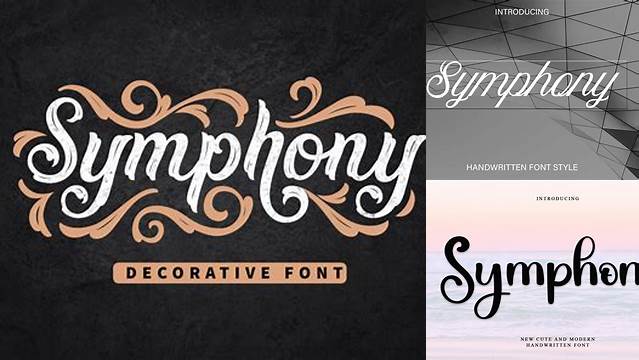
Symphony Font: Free Download And Design Guide
Hey guys! Ever find yourself on the hunt for the perfect font to jazz up your designs? If you're anything like me, the struggle is real. But fear not, because today we're diving headfirst into the world of the Symphony font, a real beauty that's totally free to download. We're talking elegance, style, and a touch of class, all wrapped up in a single typeface. Get ready to elevate your projects to a whole new level! In this comprehensive guide, we'll explore everything you need to know about the Symphony font, from its origins and characteristics to where you can snag it for free and how to use it like a pro. So, buckle up and let's get started!
What is the Symphony Font? Unveiling the Elegance
So, what exactly makes the Symphony font so special? Well, picture this: It's a sleek, modern typeface that oozes sophistication. It's like the little black dress of fonts—versatile, timeless, and always in style. Designed with a focus on readability and aesthetic appeal, Symphony is perfect for a wide range of applications, from website headers and branding materials to print designs and social media graphics. The font boasts a clean, crisp design that's easy on the eyes, ensuring your message is not only seen but also appreciated. With its well-balanced letterforms and elegant curves, Symphony adds a touch of refinement to any project, making it a go-to choice for designers and creatives alike. Seriously, the visual impact this font can have is pretty amazing. The Symphony font, known for its refined and versatile nature, stands out due to its elegant design. This font is ideal for numerous applications, making it a valuable resource for designers and creatives. Symphony fonts are not just about visual appeal; they also prioritize functionality. The font is crafted with a focus on excellent readability and visual harmony. Every aspect of the design, from the weight of the strokes to the spacing between characters, is carefully considered to make sure the text is not only attractive but also easy to read. This makes Symphony an excellent option for body text, headlines, and other design elements, ensuring that your message is conveyed efficiently. Its adaptability makes it an outstanding choice for various creative projects. Whether you are designing a website, creating marketing materials, or working on personal projects, the Symphony font can significantly improve the overall aesthetic and professionalism of your work. The simplicity and sophistication of the Symphony font enable it to complement any design style. Symphony’s compatibility with different design platforms is also worth mentioning. It works seamlessly across all major design software and operating systems, meaning you can use it in your projects without technical limitations. This ease of use makes Symphony an accessible choice for both seasoned designers and beginners alike.
Key Features and Characteristics of Symphony Font
Alright, let's dive a bit deeper and explore what makes the Symphony font tick. We're talking about its key features and characteristics, the things that make it stand out from the crowd. This is where the real magic happens, the stuff that'll have you itching to download it and start creating. The Symphony font is celebrated for its clean lines, balanced proportions, and refined aesthetic, ensuring it is suitable for various design applications. Its versatile nature makes it an excellent choice for a broad spectrum of uses, from headings and titles to body text and branding elements. Symphony’s designers focused on both visual attractiveness and practical usability. They designed each letter with care to make sure it is not only aesthetically pleasing but also highly readable. The font’s clarity is particularly beneficial in digital and print applications where text needs to be accessible and easily understood. Beyond its visual aspects, the Symphony font offers a robust character set that supports many languages and special characters, improving its versatility. This broad language support makes it an ideal choice for global projects, guaranteeing that your message can be communicated clearly, regardless of the target audience. In addition, the Symphony font is frequently available in multiple weights and styles, such as regular, bold, italic, and more, providing designers with extensive design options. This flexibility lets you adjust the font to fit different design requirements, highlighting specific text elements or matching the overall design aesthetics. Symphony’s elegance and practicality combine to provide an exceptional typographic experience, making it an essential tool for creatives. Its capacity to improve the visual appeal of designs while preserving readability guarantees that your work will stand out. It’s a choice that embodies both aesthetic quality and practical design, making Symphony an exceptional font. The ability of the Symphony font to improve the visual attractiveness of your projects while guaranteeing excellent readability is critical. This is achieved through careful design and a dedication to usability. Its ability to work in a variety of contexts, combined with its clean and versatile appearance, makes it a reliable choice for designers who want to produce visually stunning and easily understandable material.
How to Use the Symphony Font Effectively in Your Designs
Okay, you've got the font downloaded, now what? How do you actually use the Symphony font to make your designs pop? It's all about knowing how to make it work for you. The Symphony font is very versatile, and with a bit of skill, you can use it for different design scenarios. This allows it to be used in a wide range of designs, providing options for both headings and body text. Using Symphony fonts in your designs means you can adjust them to fit various styles. They are excellent for headings, titles, and short text sections, where their clean lines and elegant appearance create a strong visual impact. Use it for the main headings and create something that will pop! It's like adding that final touch! The font's readability makes it a great option for body text. The font can be a wonderful tool to make any document visually pleasing. Experiment with the font's weights and styles to make important parts of your text stand out. Bold or italic versions can improve the appearance of headings and emphasis on certain words or phrases. Symphony can be paired with other fonts to create visual interest and improve the design's overall balance. When pairing Symphony with another font, select a complimentary font to achieve a good balance. In most circumstances, using a sans-serif font for the body text will create a modern and clean look. You can also make a beautiful and balanced design. Consider the font's use and the design's overall theme to ensure a cohesive look. Always think about the visual hierarchy in your designs. Use the Symphony font to show key information and guide the audience's attention. Use bigger sizes, bolder weights, or different colors to draw attention to headings, titles, or important text. Make sure your visual emphasis is clear so the reader can understand what you're trying to do. When using the Symphony font, think about the setting and readability. Use sufficient spacing between letters and lines to improve the reading experience, especially in long-form text. Make sure the font's color contrasts effectively with the background color to improve readability and make sure the text is easily read. To add a touch of elegance and visual interest, experiment with Symphony in different design projects, such as logos, brand materials, website headers, and social media graphics. A little experimentation and attention to detail can have a big effect! Remember, the most important thing is to be creative and discover what works best for your design. The Symphony font is a versatile and amazing tool; it offers you a variety of ways to express your creative vision. With a little practice, you can create stunning designs that leave a lasting impact.
Tips and Tricks for Maximizing the Impact of Symphony Font
Alright, let's level up your Symphony game with some pro tips and tricks. We're talking about how to really make this font shine and take your designs to the next level. First, experiment with the font's different weights and styles. Symphony typically comes in various weights, from light to bold, and may include italic versions. Using various weights can add depth and visual interest to your designs. Use bold for headings and subheadings to draw attention and light for body text to maintain readability. The font's versatility allows you to explore various design choices. Next, consider the size and spacing of the Symphony font. The size of the font and the spacing between letters (kerning) and lines (leading) have a major impact on readability and visual appeal. In general, bigger font sizes work well for headings and titles, while smaller sizes are ideal for body text. Ensure adequate spacing to prevent crowding and enhance the reading experience. Carefully adjusting the size and spacing can dramatically improve how your designs look. Think about color combinations. Color has a major impact on your design's appearance. Use the Symphony font with colors that complement the design's overall tone and purpose. High-contrast color schemes, such as dark text on a light background or vice versa, can improve readability and emphasize the font. Experiment with different colors and see what best matches the visual tone you want to set. Another great tip is to combine Symphony with other fonts. It's like creating the perfect outfit! Symphony is versatile but works best with other fonts. Consider pairing it with a contrasting font to add depth to the design. For example, you might use a serif font for the body text and the Symphony font for headings to create a balanced and visually appealing design. Make sure your fonts complement each other. Always focus on your brand and keep it in your mind. Keep your font consistent. Always remember to use the Symphony font in a way that is consistent with the brand's overall image and messaging. Always be consistent. If you're designing for a company, it's very important to make sure the font fits their style guide and design guidelines. This consistency is very important for brand recognition and professional design. By following these tips and tricks, you can ensure that you maximize the Symphony font's potential and create designs that are not only visually appealing but also professional and effective. The more you play with it, the better you'll be.
Conclusion: Embrace the Elegance of Symphony Font
So, there you have it! The Symphony font is a fantastic choice for anyone looking to add a touch of elegance and sophistication to their designs, and even better, you can download it for free. It's a versatile typeface that can be used in a wide range of projects, from website headers to branding materials, and everything in between. Whether you're a seasoned designer or just starting, the Symphony font is definitely worth a try. If you are creative and want to show the world, there is a font for you! By following the tips and tricks outlined in this guide, you'll be well on your way to creating stunning designs that truly stand out. Now go forth and start designing, and remember to have fun with it! Happy creating, everyone! And don't forget to explore the different weights and styles, experiment with pairings, and most importantly, let your creativity run wild. The world of typography is waiting for you, so go out there and make something amazing!